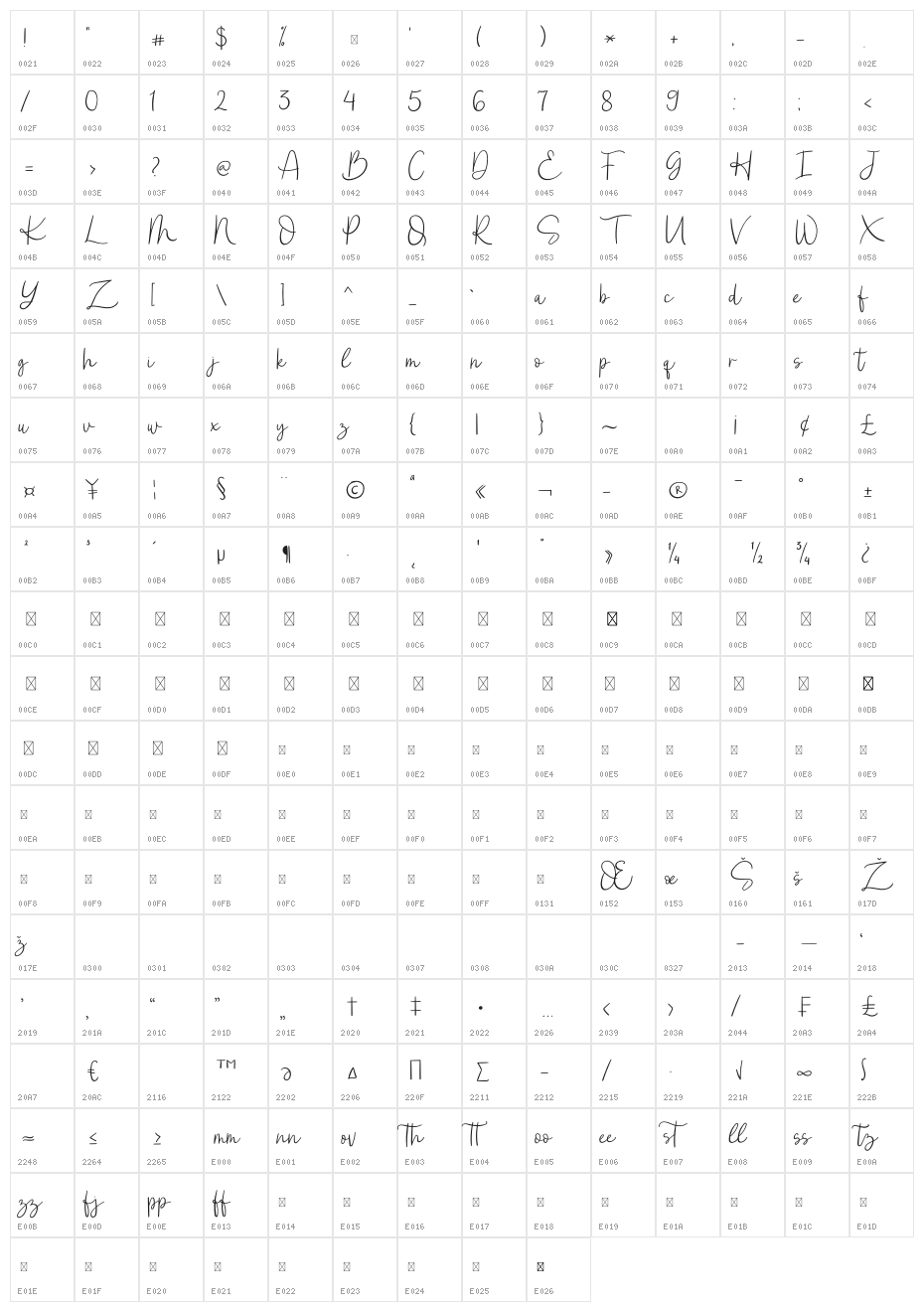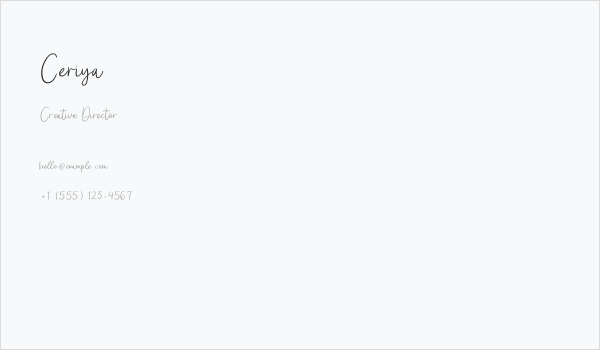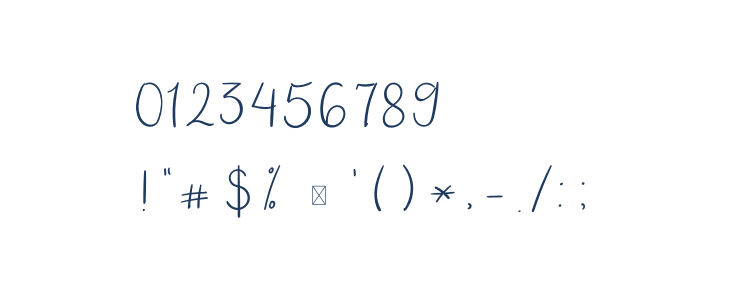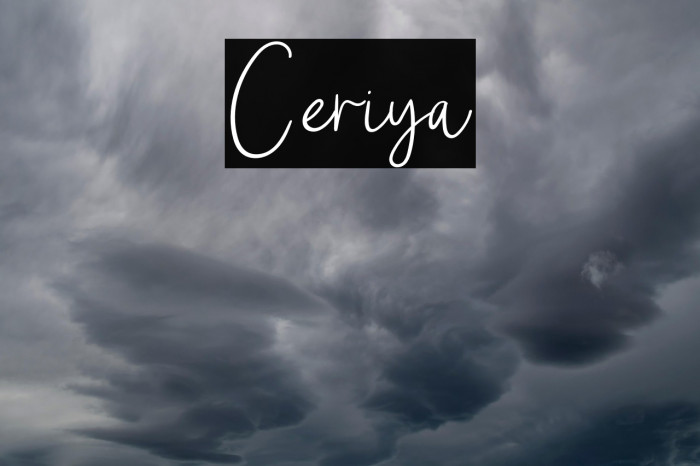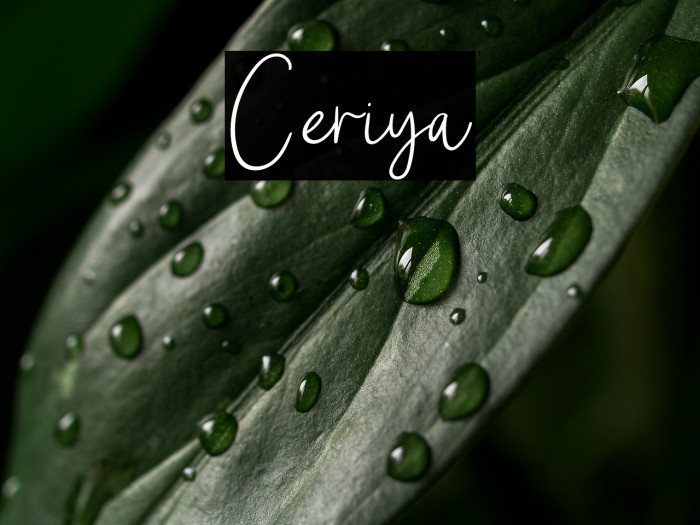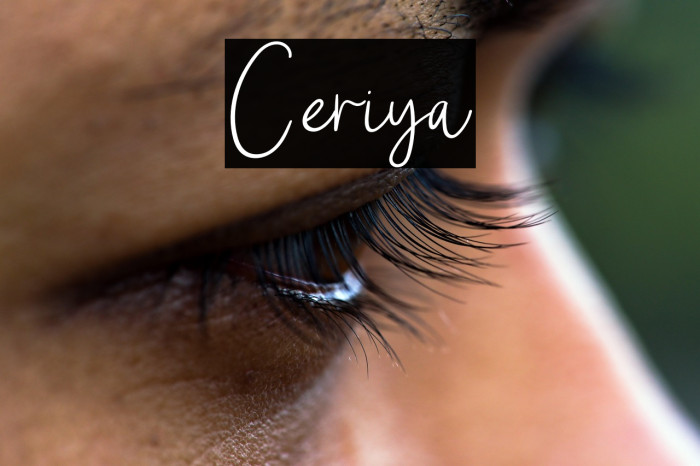
Ceriya Font
Ceriya Description
This font features a playful and elegant handwritten style, characterized by its fluid and continuous strokes. The uppercase letters are tall and slightly narrow, with a whimsical flair that adds a touch of personality. The lowercase letters maintain a consistent flow, enhancing readability while retaining a casual charm. Numbers are clear and distinct, matching the overall aesthetic. Special characters are thoughtfully designed, integrating seamlessly with the alphabet. The font's overall appearance is both modern and approachable, making it suitable for a variety of creative applications.
| Proposed Projects | Ideal for greeting cards, invitations, personal branding, and social media graphics. |